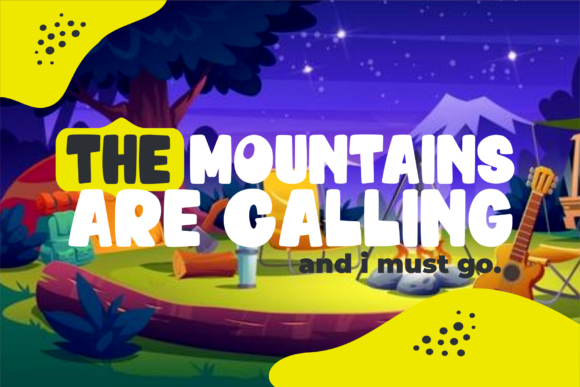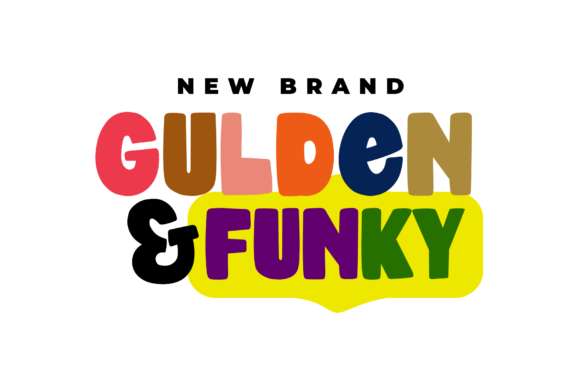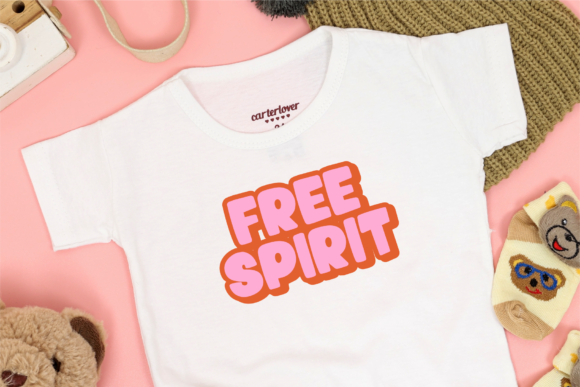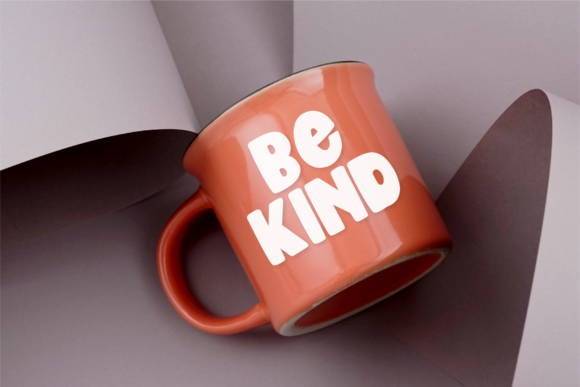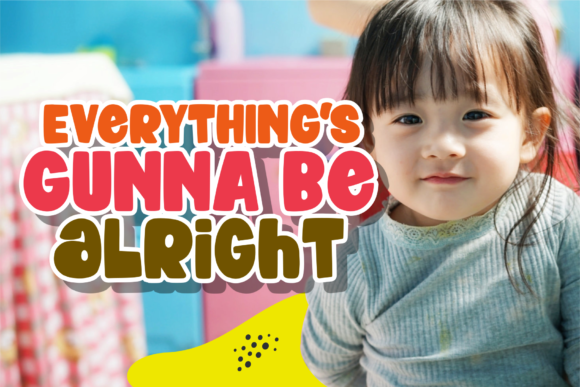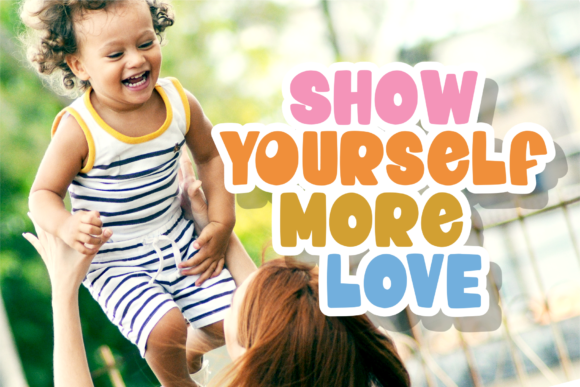
Cobalt Font: The Ultimate Choice for Designers and Crafters
Cobalt Font is a fun and bold display font that has taken the design world by storm. Its unique blend of trendiness and versatility makes it an ideal choice for designers, crafters, and anyone looking to add a touch of personality to their projects. In this article, we’ll dive into the world of Cobalt Font, exploring its features, uses, and benefits.
What is Cobalt Font?
Cobalt Font is a display font designed to make a statement. Its bold and playful design makes it perfect for projects that require a bit of flair. Whether you’re creating digital designs, presentations, greeting cards, or crafting projects, Cobalt Font is the perfect choice. Its clean lines, rounded edges, and modern aesthetic make it a versatile font that can be used in a variety of contexts.
Features of Cobalt Font
Cobalt Font boasts a range of features that make it a standout in the world of typography. Some of its key features include:
- Bold and playful design: Cobalt Font is designed to grab attention. Its bold and playful design makes it perfect for projects that require a bit of personality.
- Clean lines and rounded edges: The font’s clean lines and rounded edges give it a modern and approachable feel.
- Versatile: Cobalt Font can be used in a variety of contexts, from digital designs to crafting projects.
- Easy to read: Despite its bold design, Cobalt Font is easy to read, making it perfect for projects that require a bit of flair without sacrificing legibility.
Uses of Cobalt Font
Cobalt Font is a versatile font that can be used in a variety of projects. Some of its most popular uses include:
- Digital designing: Cobalt Font is perfect for digital designers looking to add a touch of personality to their projects.
- Crafting: The font’s playful design makes it perfect for crafting projects, such as scrapbooking, card making, and DIY tutorials.
- Presentations: Cobalt Font can be used to add a bit of flair to presentations, making them more engaging and attention-grabbing.
- Greeting cards: The font’s bold and playful design makes it perfect for creating unique and personalized greeting cards.
Benefits of Using Cobalt Font
Cobalt Font offers a range of benefits for designers and crafters. Some of its key benefits include:
- Unique and personalized designs: Cobalt Font allows designers and crafters to create unique and personalized designs that stand out from the crowd.
- Time-saving: The font’s versatility and ease of use make it a time-saving solution for designers and crafters.
- Easy to pair with other fonts: Cobalt Font can be easily paired with other fonts to create a unique and cohesive look.
- High-quality design: The font’s high-quality design ensures that it looks great in any project, whether digital or print.
Tips for Using Cobalt Font
Here are a few tips for using Cobalt Font in your projects:
- Use it sparingly: While Cobalt Font is a beautiful font, it’s best used sparingly to avoid overwhelming the reader.
- Pair it with other fonts: Cobalt Font can be easily paired with other fonts to create a unique and cohesive look.
- Experiment with different colors: The font’s bold design makes it perfect for experimenting with different colors and color combinations.
Cobalt Font is a fun and bold display font that’s perfect for designers and crafters looking to add a touch of personality to their projects. Its versatility, ease of use, and high-quality design make it a valuable addition to any design toolkit. Whether you’re creating digital designs, presentations, greeting cards, or crafting projects, Cobalt Font is the perfect choice.